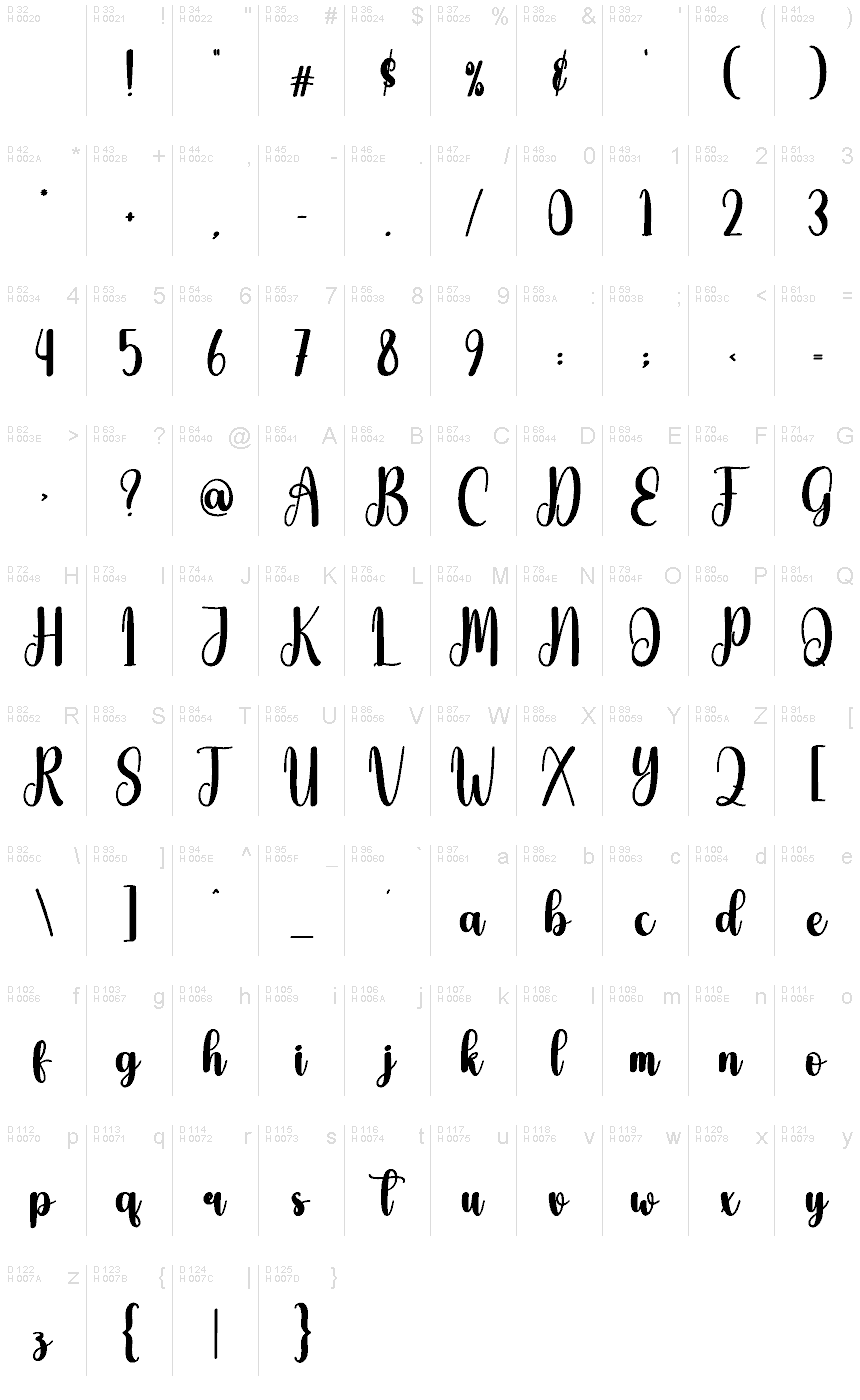
Nightlight
Nightlight font by Andi Moz is an elegant, whimsical handwritten font with a signature influence. The flowing script of this free handwritten font features exquisite decorative elements that only enhance its graceful style. And no modern project can go wrong when Nightlight is added to the scene.
From branding designs to product packaging and labels, this tool can bring a dazzling effect to it all. Other uses include magazine covers and interior pages, logotypes and billboards, titles for TV series and books, ads and items relating to makeup and skincare products, etc.